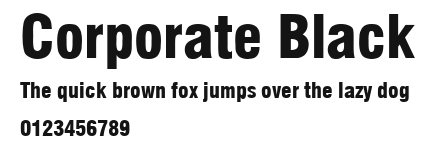
Corporate Black.ttf is a modern, elegant sans-serif font designed for ultimate readability and visual harmony. Perfect for branding, headlines, web design, and print materials.